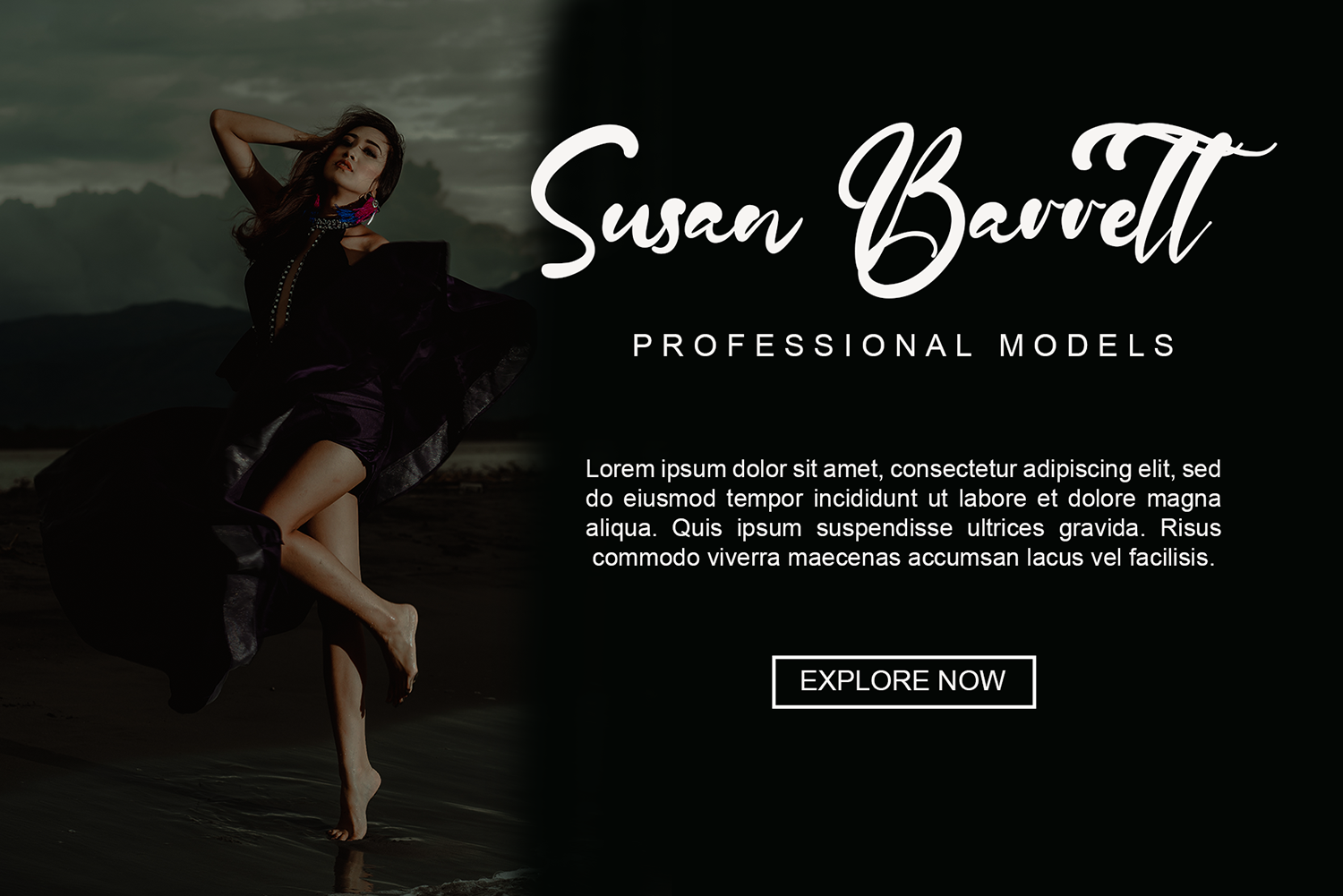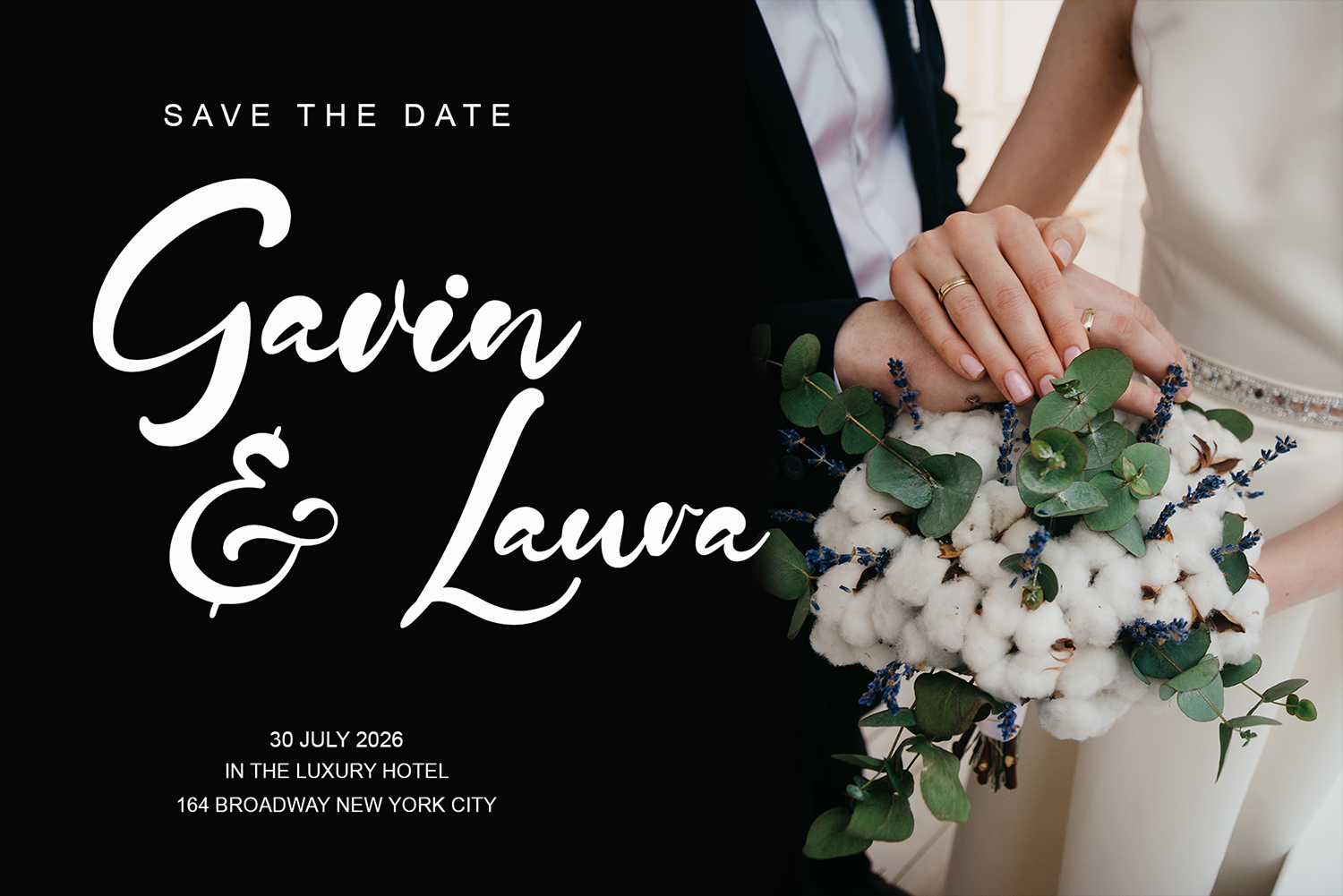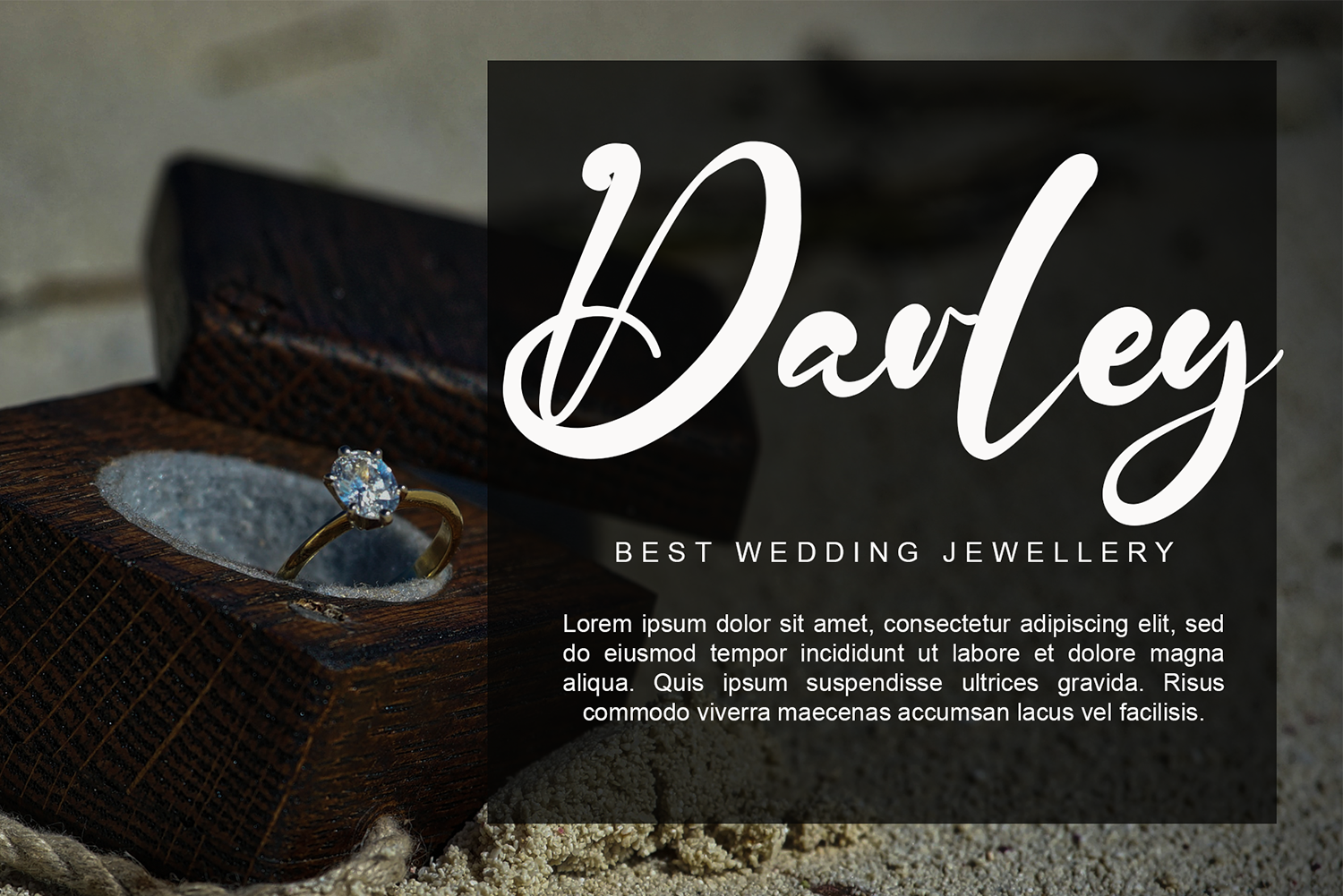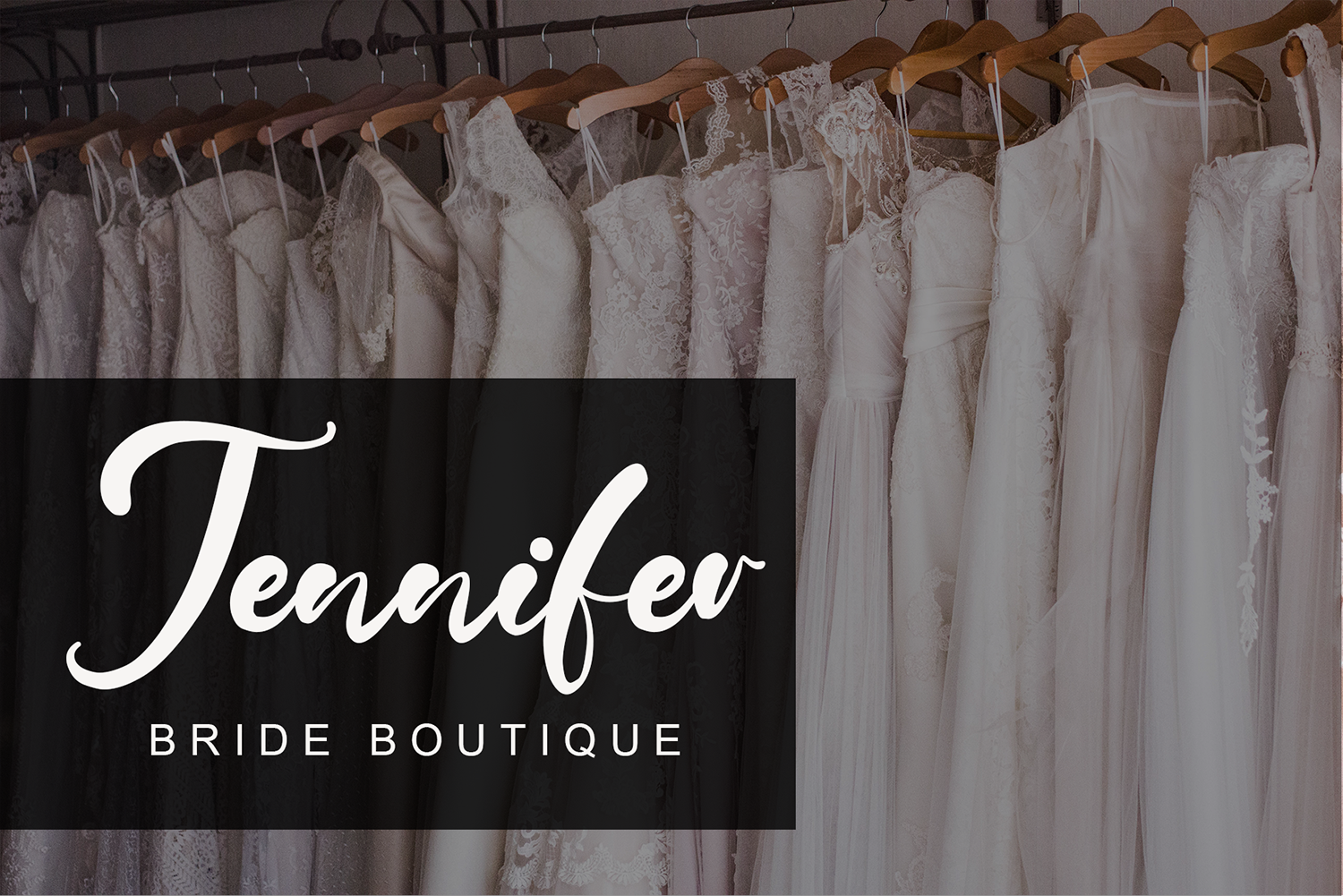
Rotterdam Canal Free Font
Explore the contemporary elegance of Rotterdam Canal Free Font, a script typeface designed for versatility in all your projects. Ideal for logotypes, branding, digital lettering, T-shirt/apparel designs, posters, magazines, signs, advertising, and beyond! Unleash its potential across a myriad of creative endeavors. This free typeface was designed by a talented Staircase Studio. If you like it don’t forget to check out the full version.